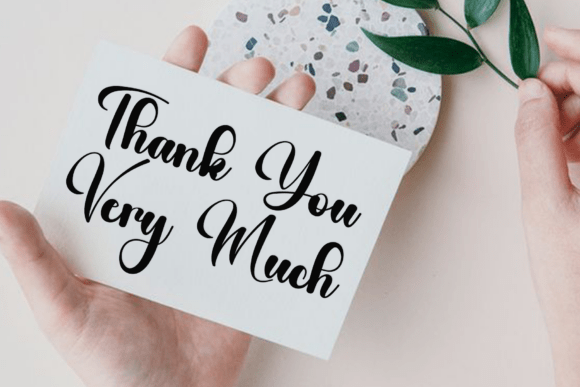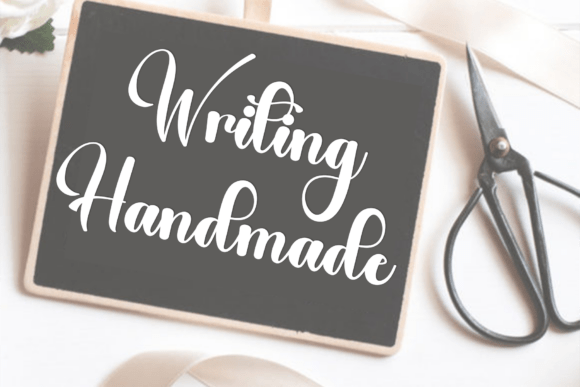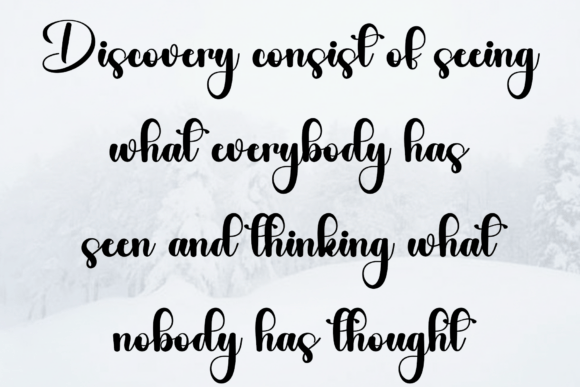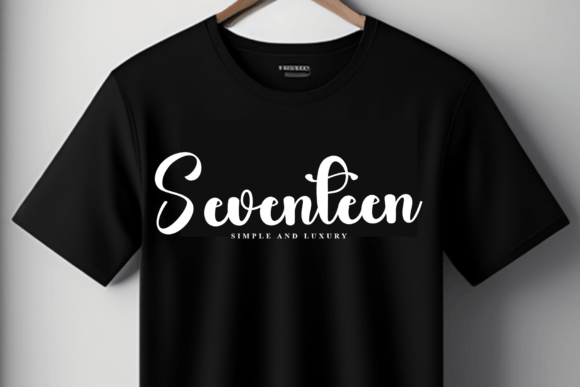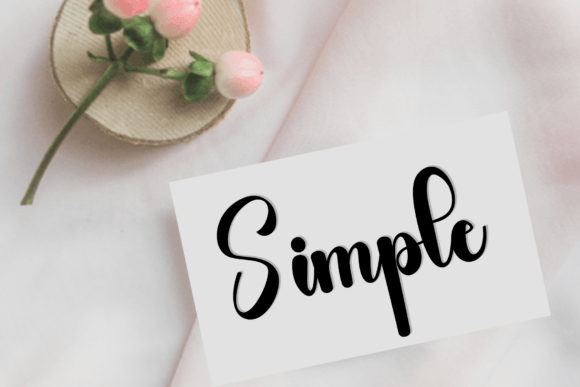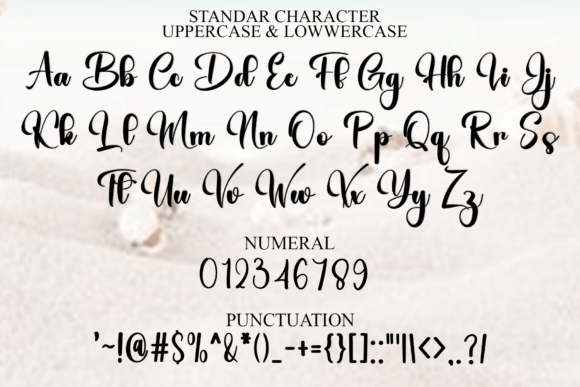
Introducing Family Calligraphy Font: A Timeless Blend of Elegance and Modernity
Are you searching for a font that embodies the perfect balance of traditional sophistication and contemporary flair? Look no further than the Family Calligraphy Font. This stunning script typeface seamlessly merges the classic elegance of calligraphy with a modern, handcrafted aesthetic, making it an ideal choice for a wide range of creative projects.
A Masterful Blend of Traditional and Modern Elements
Family Calligraphy Font boasts a bold and soulful design that is sure to captivate audiences. Its dramatic, sweeping ascenders and descenders create a beautiful, rhythmic flow that adds a touch of sophistication to any design. The font’s high-contrast stroke work is a defining characteristic, where thick, lush downstrokes meet delicate, tapering curves, evoking a sense of warmth and artisanal craftsmanship.
Perfect for Meaningful Branding and Creative Projects
Whether you’re working on a branding project, wedding stationery, or lifestyle editorial headers, Family Calligraphy Font is the perfect choice. Its unique blend of traditional and modern elements makes it an excellent option for designers and crafters looking to add a touch of elegance and sophistication to their work. This font is ideal for:
- Meaningful branding projects that require a sense of heritage and connection
- Wedding stationery, including invitations, save-the-dates, and thank-you cards
- Lifestyle editorial headers that require a touch of elegance and sophistication
- Creative projects that aim to evoke a sense of warmth and artisanal craftsmanship
Key Features of Family Calligraphy Font
So, what sets Family Calligraphy Font apart from other script typefaces? Here are some of its key features:
- High-contrast stroke work: Thick, lush downstrokes meet delicate, tapering curves, creating a beautiful, rhythmic flow
- Dramatic ascenders and descenders: Sweeping curves that add a touch of sophistication to any design
- Modern, handcrafted aesthetic: A unique blend of traditional and contemporary elements
- Bold and soulful design: Perfect for making a statement or adding a touch of elegance to any project
Tips for Using Family Calligraphy Font
To get the most out of Family Calligraphy Font, here are some tips to keep in mind:
- Use it sparingly: Due to its bold and soulful design, Family Calligraphy Font works best when used sparingly. Use it for headings or titles to add a touch of elegance and sophistication.
- Pair it with complementary fonts: Family Calligraphy Font pairs well with clean, sans-serif fonts. Try pairing it with a font like Open Sans or Lato for a beautiful contrast.
- Experiment with colors: Family Calligraphy Font looks stunning in a variety of colors. Experiment with different hues and gradients to find the perfect combination for your project.
Family Calligraphy Font is a stunning script typeface that offers the perfect blend of traditional elegance and modern sophistication. Its bold and soulful design, high-contrast stroke work, and dramatic ascenders and descenders make it an ideal choice for a wide range of creative projects. Whether you’re a designer, crafter, or simply someone looking for a beautiful font to add to your collection, Family Calligraphy Font is sure to impress.